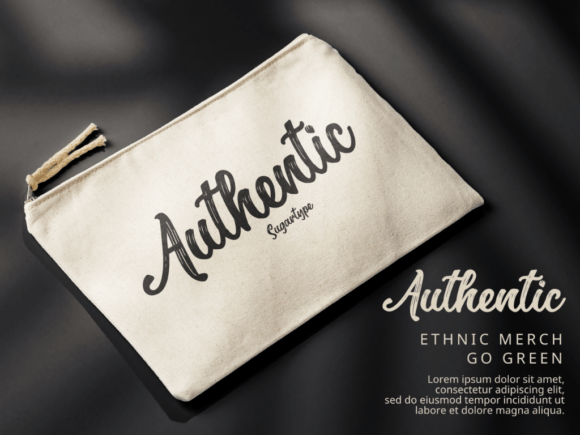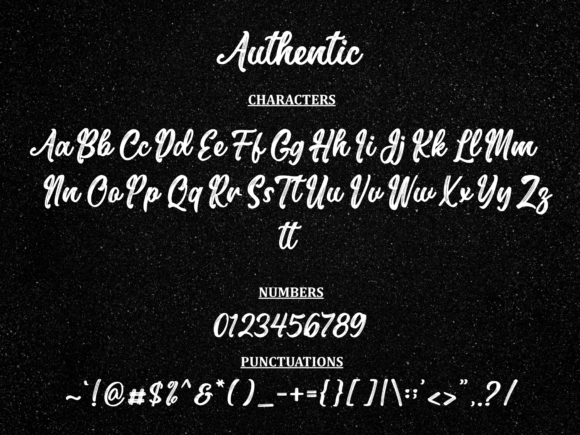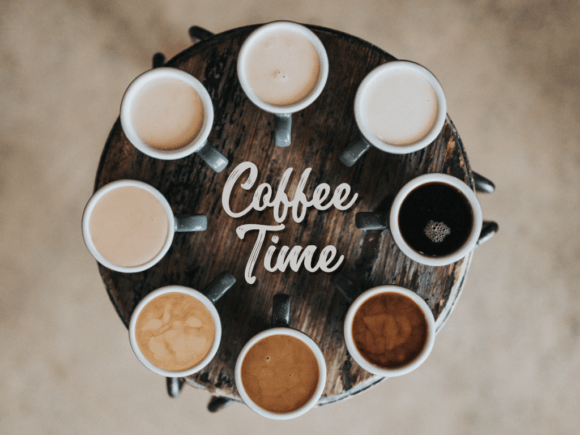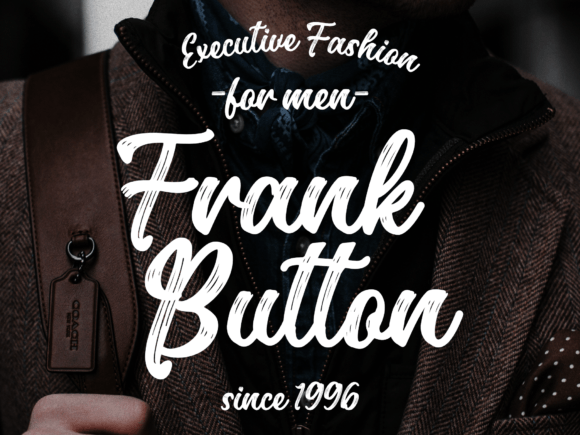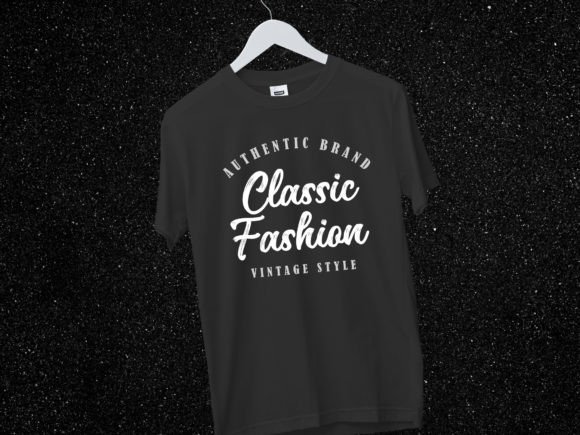
Adding a Touch of Personality to Your Designs
There’s something special about receiving a handwritten note or card from a loved one – the imperfections, the flair, the personal touch that makes it truly unique. As designers, we’re always on the lookout for ways to add that same warmth and character to our work. Whether it’s a logo, a poster, or a social media post, the right font can make all the difference in conveying our message and connecting with our audience.
That’s where the Authentic Font comes in – a bold, classic, and elegant handwritten brush font that’s designed to add a personal touch to your designs. With its unique and expressive style, inspired by the look and feel of writing with a digital brush, the Authentic Font is the perfect way to make your text stand out and leave a lasting impression.
Authentic Font Key Features
- Unique Characteristics: Authentic Font features a unique blend of modern and classic design elements, with intricate details and subtle texture, giving it a sophisticated and professional look.
Authentic Font Review
I’ve had the chance to work with the Authentic Font recently, and I wanted to share my honest thoughts on it.
- Unique aesthetic: The Authentic Font has a distinct, vintage feel that can add a lot of character to a design.
- Readability: Despite its ornate appearance, the font is surprisingly easy to read, even at smaller font sizes.
- Flexibility: The font comes in a range of weights and styles, making it easy to find the perfect fit for your project.
- Overuse: The Authentic Font’s unique style can quickly become overwhelming if overused. Be careful not to overdo it.
- Lack of versatility: While the font is great for titles and headings, it may not be the best choice for body text or long blocks of copy.
Overall, I think the Authentic Font is a great addition to any designer’s toolkit. Just be mindful of its limitations and use it thoughtfully to get the most out of it.
Authentic Font Guide
The Authentic font is a unique and elegant script font that can be used for various design purposes. To get started, you can download the font from a reliable source and install it on your computer.
Authentic Font is a popular font choice among designers, but it may not suit every project. Here are a few alternatives to consider.